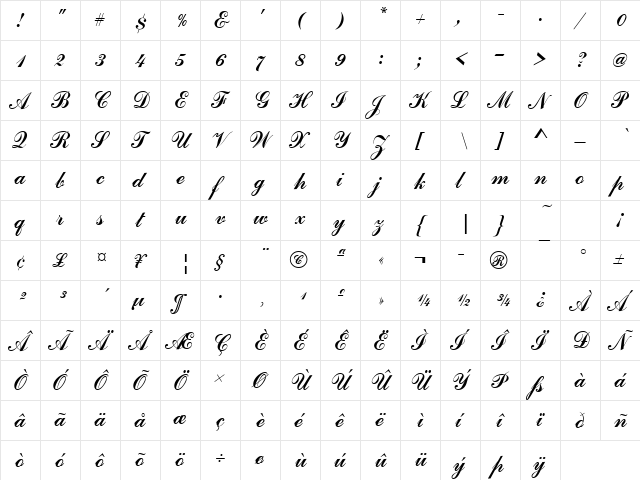
CommercialScrT Regular
Design Context for CommercialScrT Typeface
CommercialScrT takes a measured approach to typography — its balanced proportions and neutral character make it a reliable workhorse for both digital and print work.
Pro Tip: Use CommercialScrT in both headline and body roles to test its range before committing to a single application.